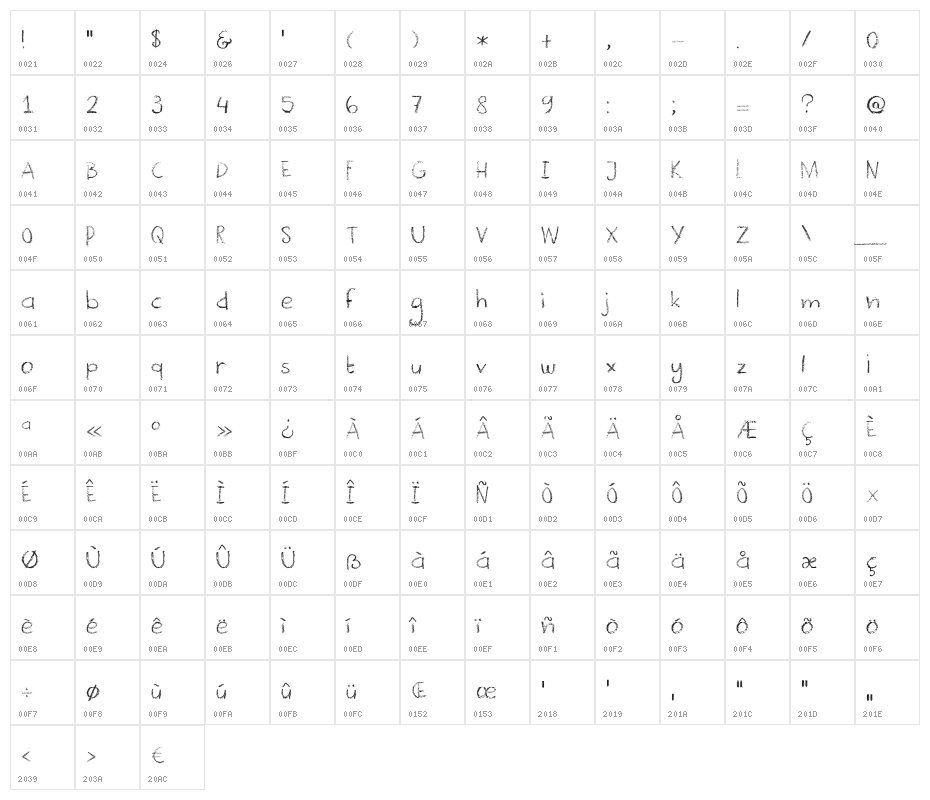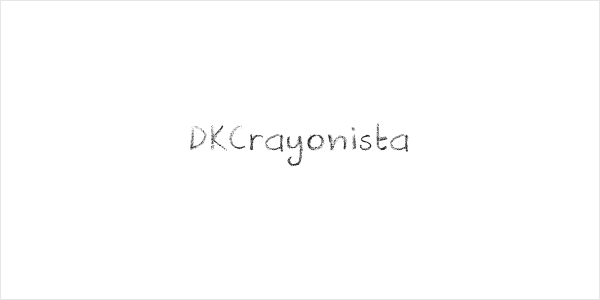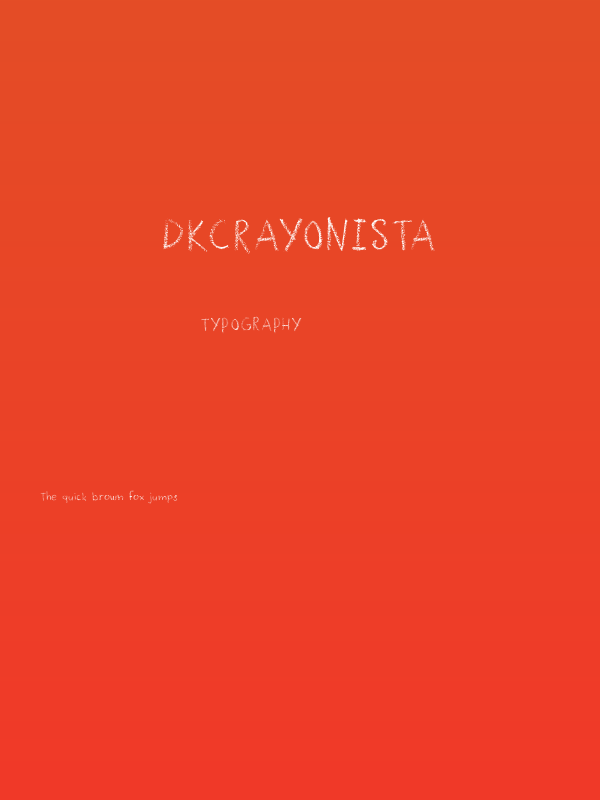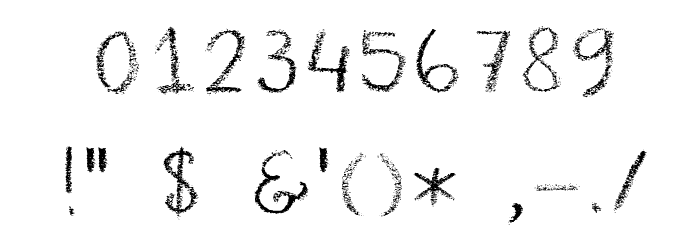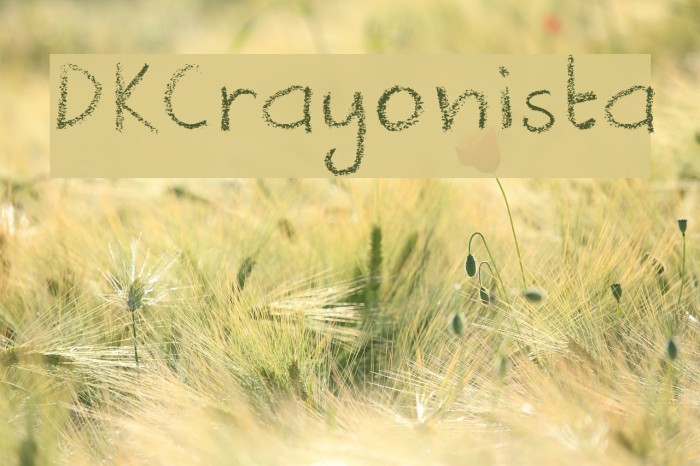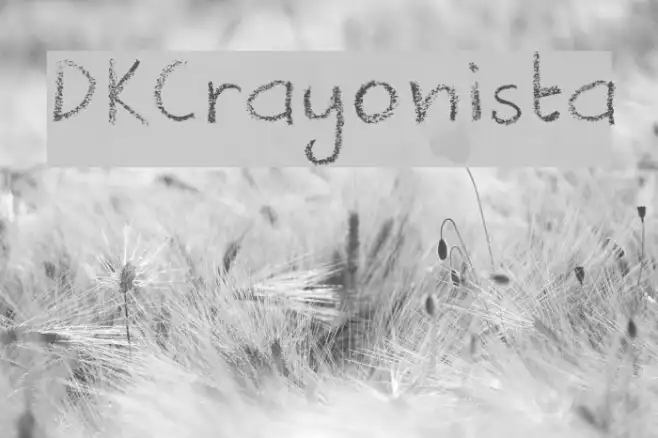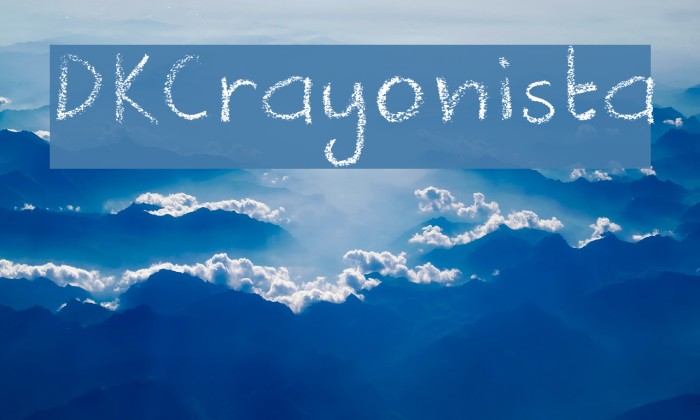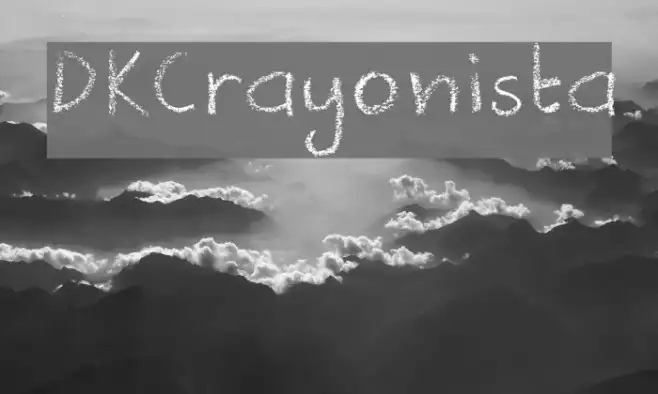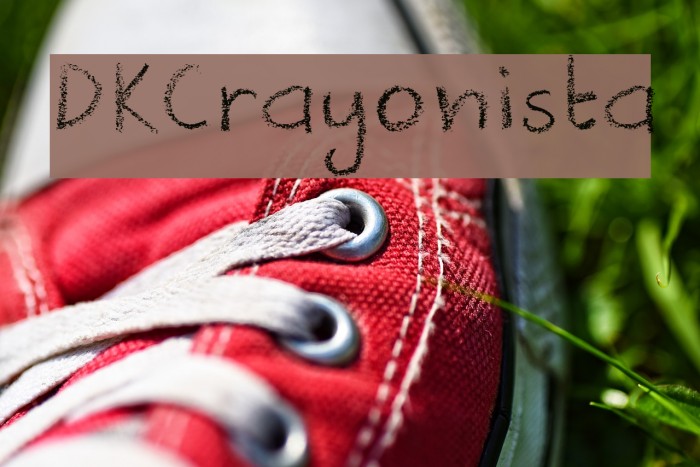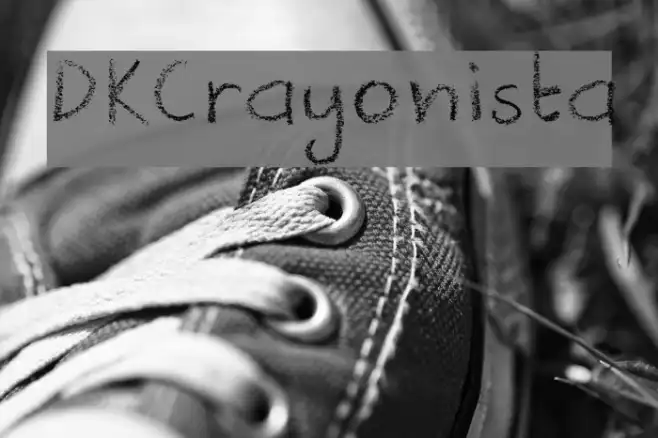
DKCrayonista Font
DKCrayonista Description
This playful and textured font mimics the appearance of crayon or chalk writing, offering a nostalgic and childlike charm. The letters have a rough, uneven edge that gives them a hand-drawn feel, making them perfect for projects that require a touch of whimsy or creativity. The uppercase and lowercase letters maintain a consistent style, with rounded forms and a slightly irregular baseline, enhancing the casual and informal look. Numbers and special characters follow the same design, ensuring a cohesive appearance across all text elements.
| Proposed Projects | Ideal for children's books, educational materials, playful branding, and creative posters. |